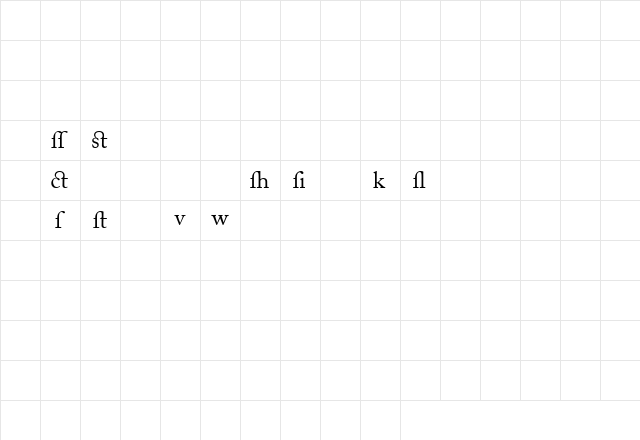
Caslon Alternate SSi Roman
Design Context for Caslon Alternate SSi Typeface
Caslon Alternate SSi is a composed and adaptable typeface that performs quietly and consistently across a wide range of design contexts.
Pro Tip: Use Caslon Alternate SSi in both headline and body roles to test its range before committing to a single application.